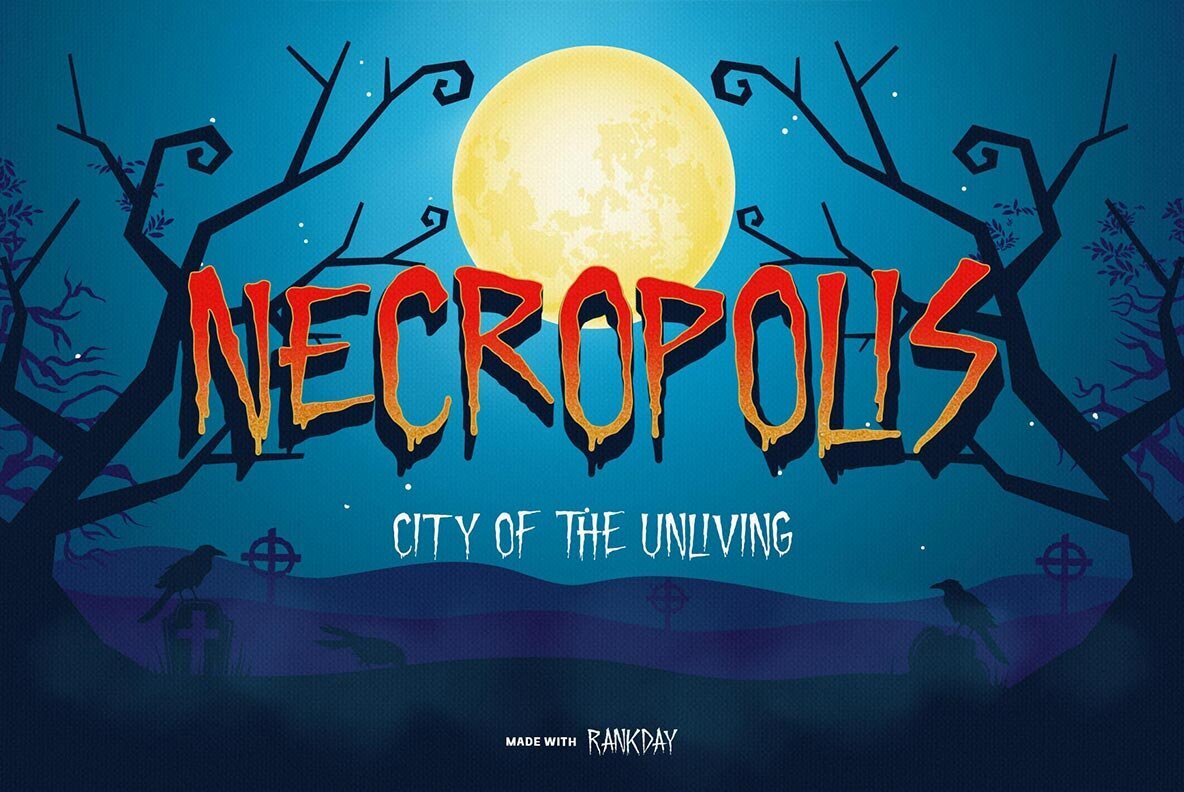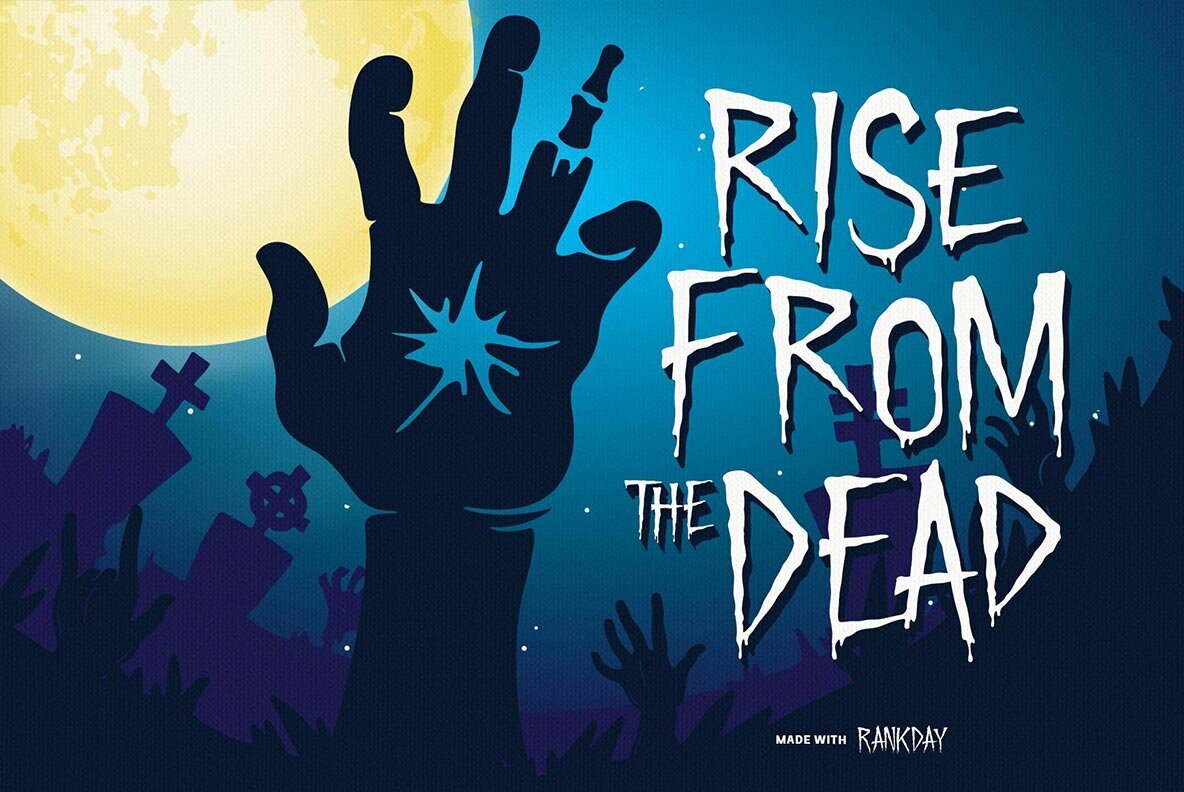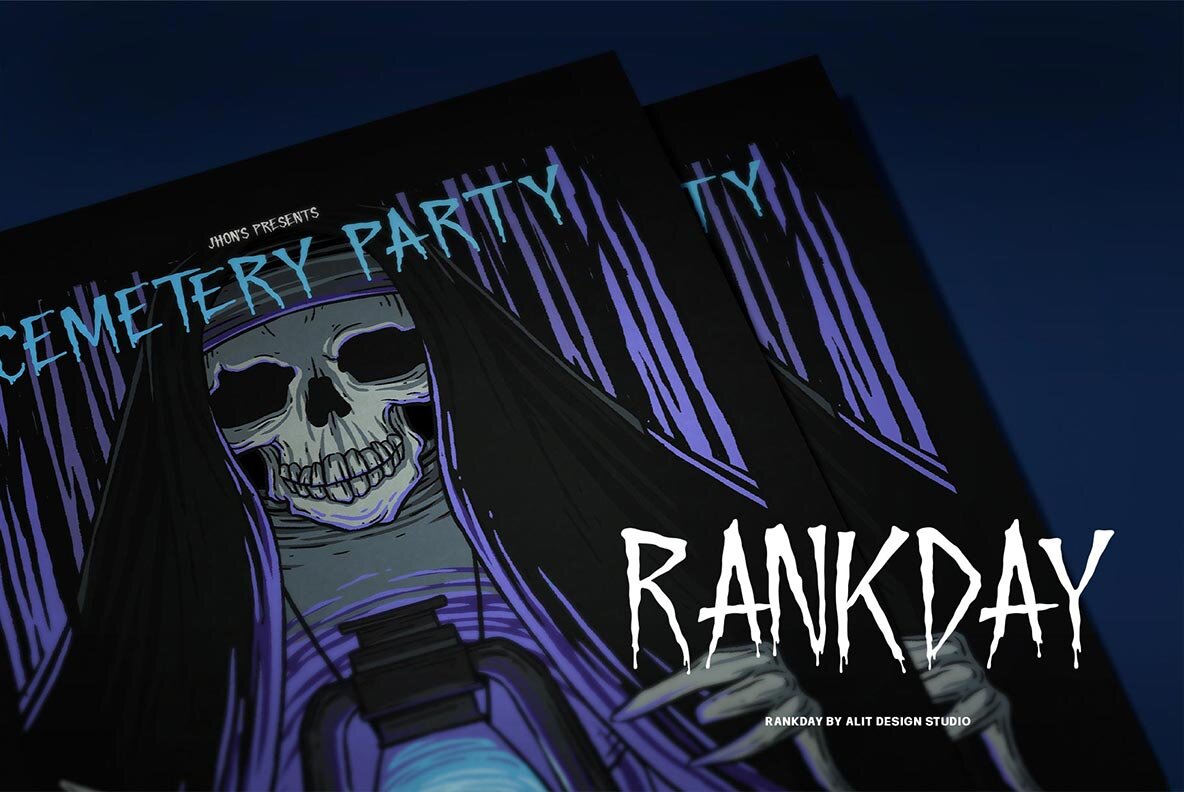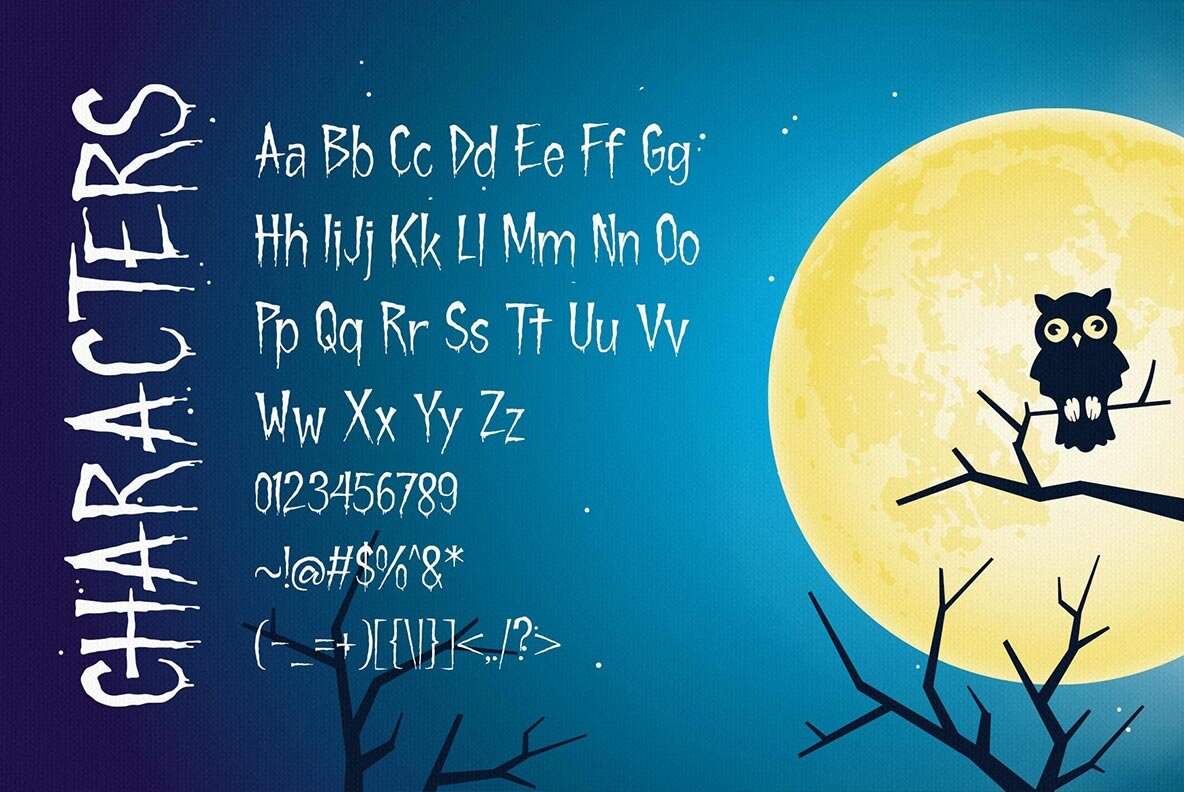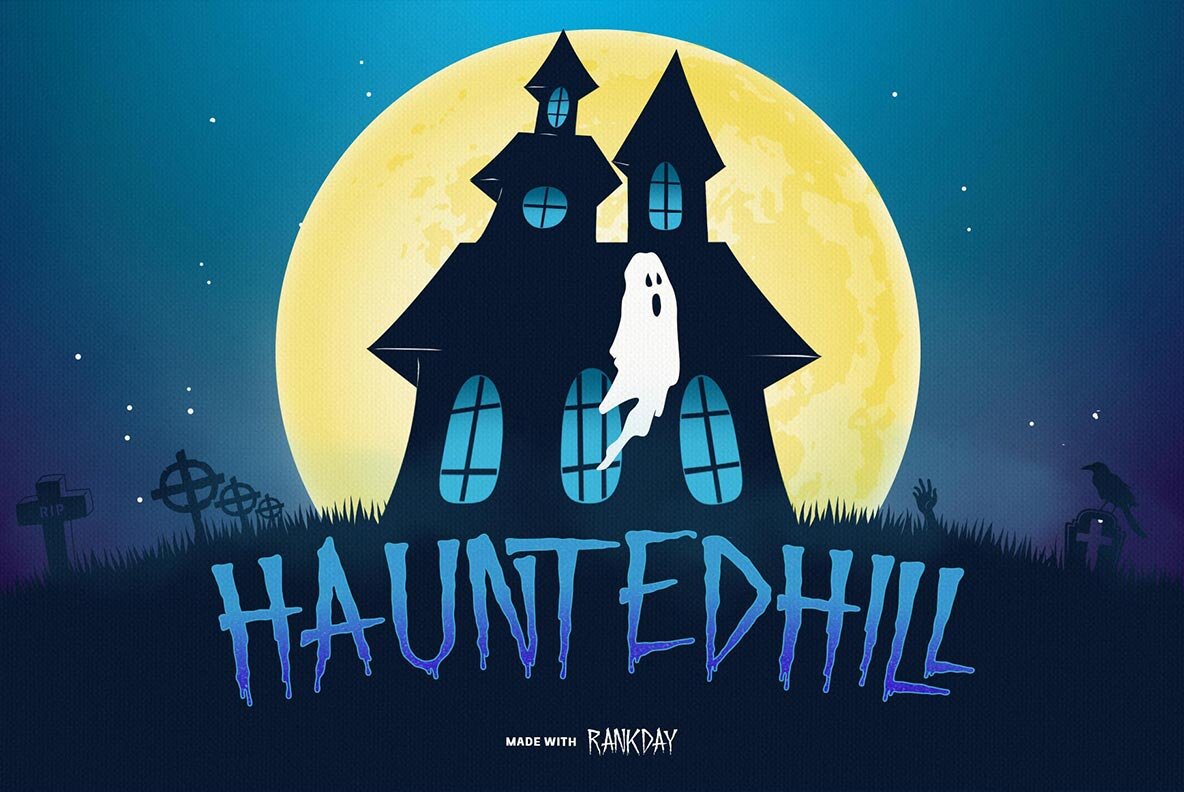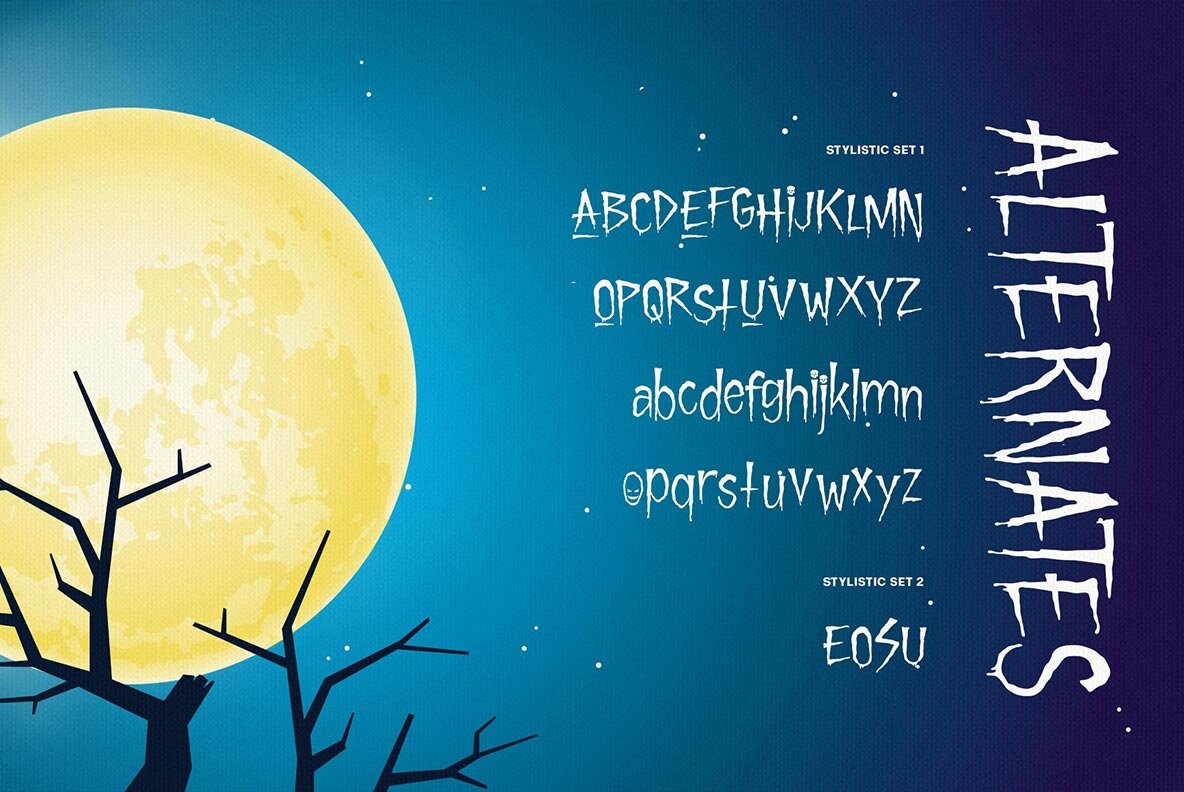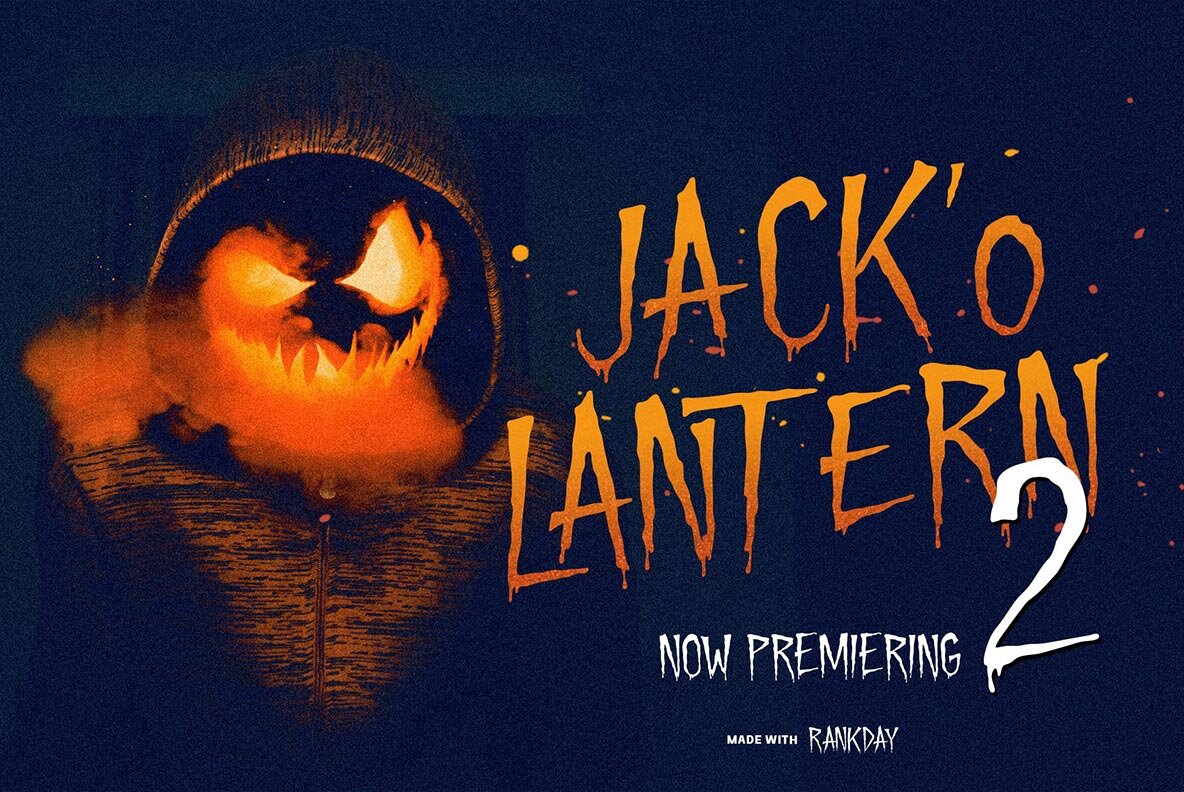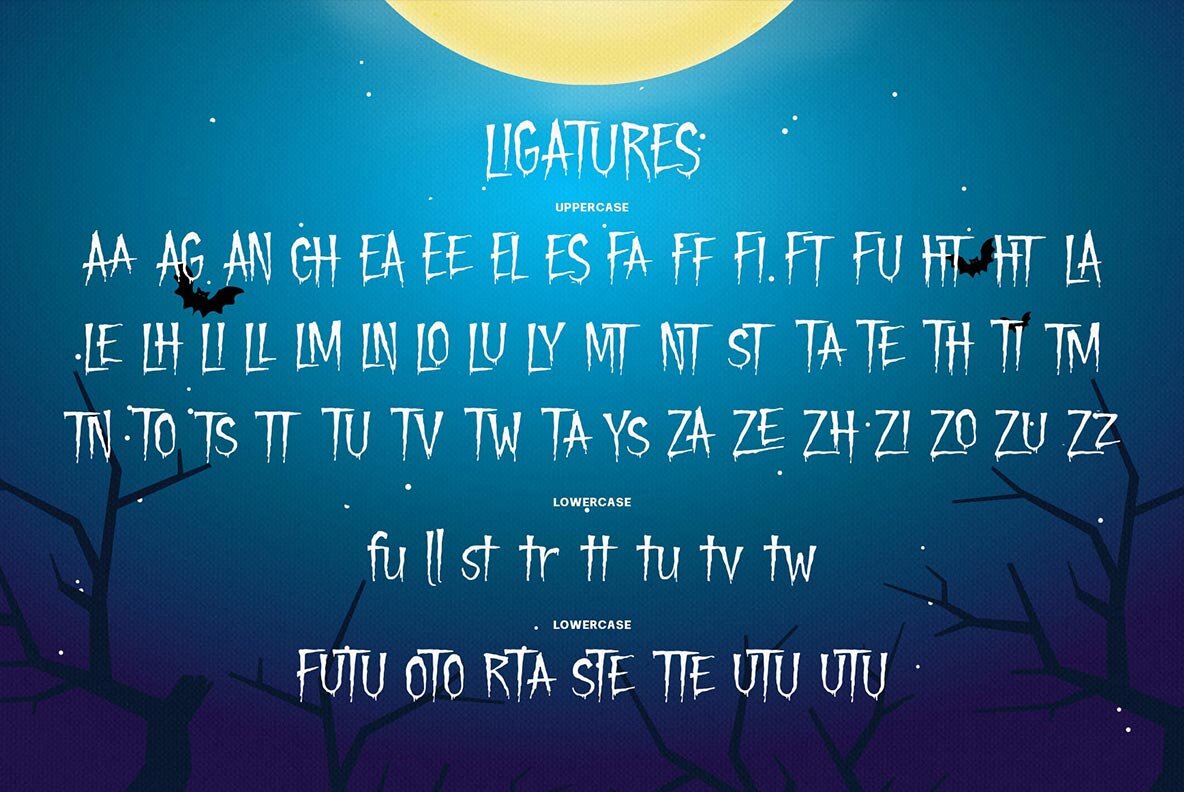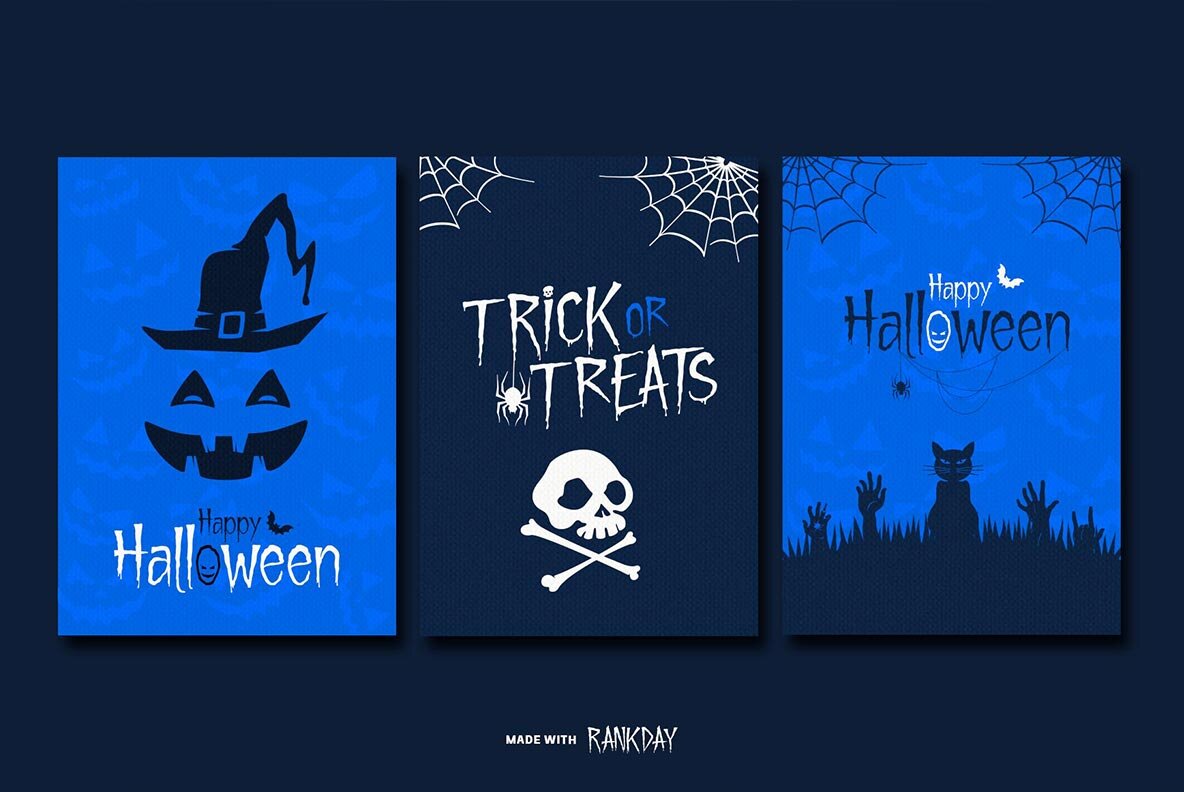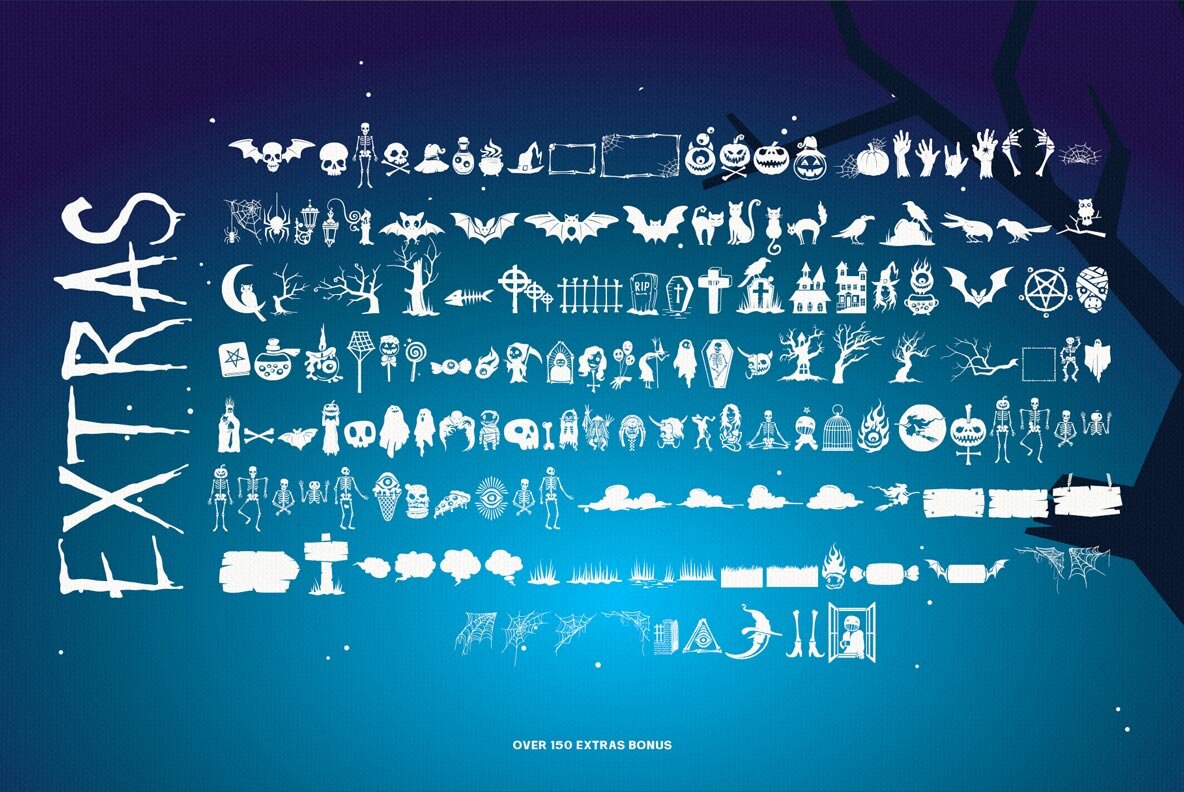
Rankday Font
Rankday Font and Extras Set (2 fonts)
Rankday typeface is designed for the needs of design concepts themed about Halloween and events in October and November. The Rankday font has a horror character with a character shaped like dripping blood, making the horror Halloween themed design concept even better and unique.
The Rankday font also gets a bonus of 150 Halloween-themed illustrations that make creating designs even easier. Simply by downloading the Rankday font, creating a Halloween themed design is very quick and easy.
The Rankday Typeface is perfect for magazine cover designs, brochures, flyers. Instagram ads, Canva Design and so on with halloween and dark concepts. besides that this font is very easy to use both in design and non-design programs because everything changes and glyphs are supported by Unicode (PUA).
The Rankday Typeface contains 607 + 150 bonus glyphs with many unique and interesting alternative options.
Language Support : Latin, Basic, Western European, Central European, South European,Vietnamese.